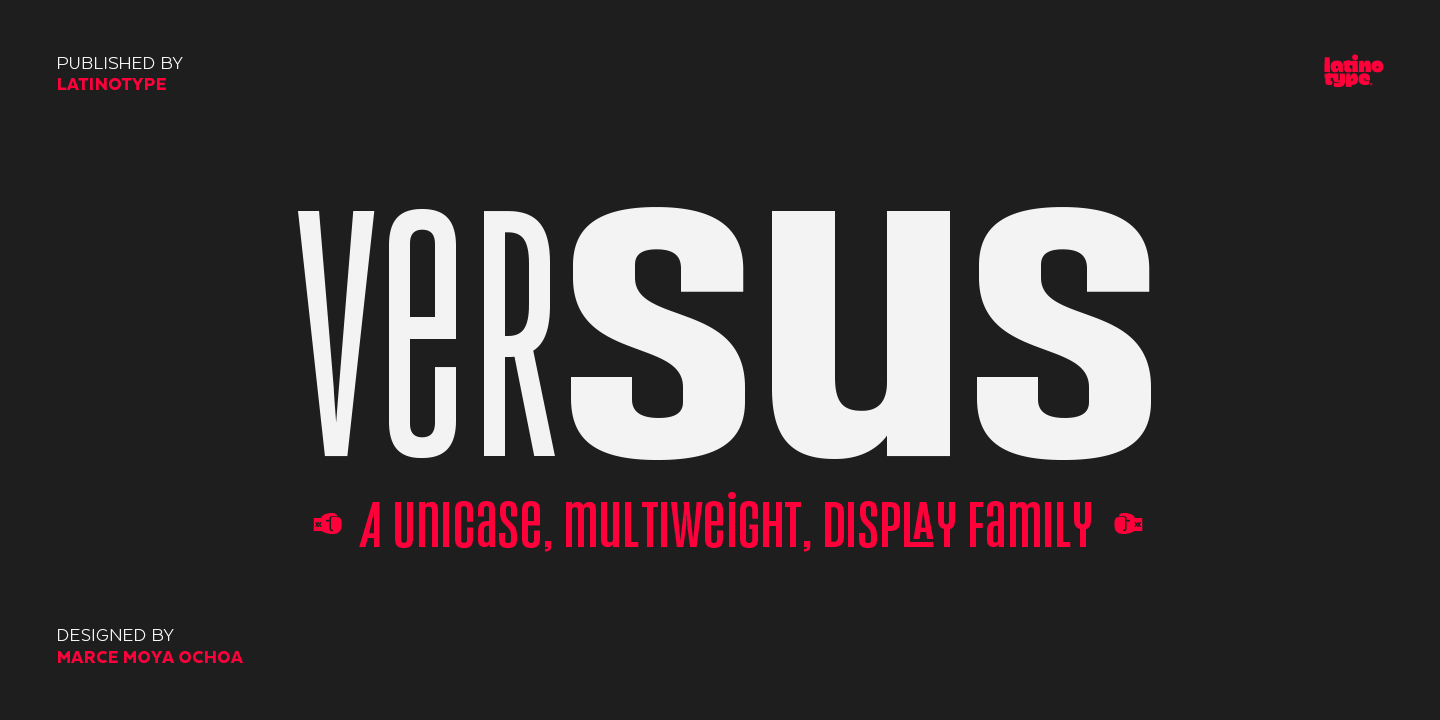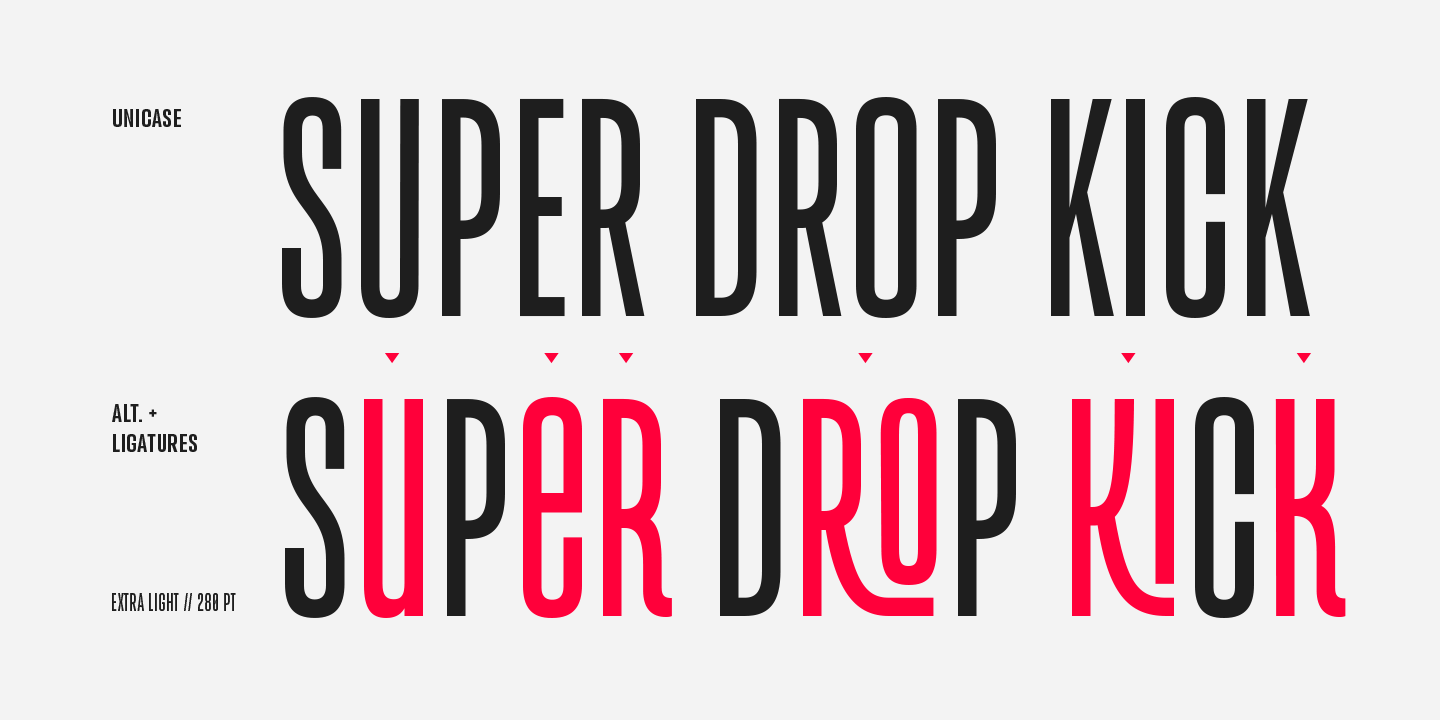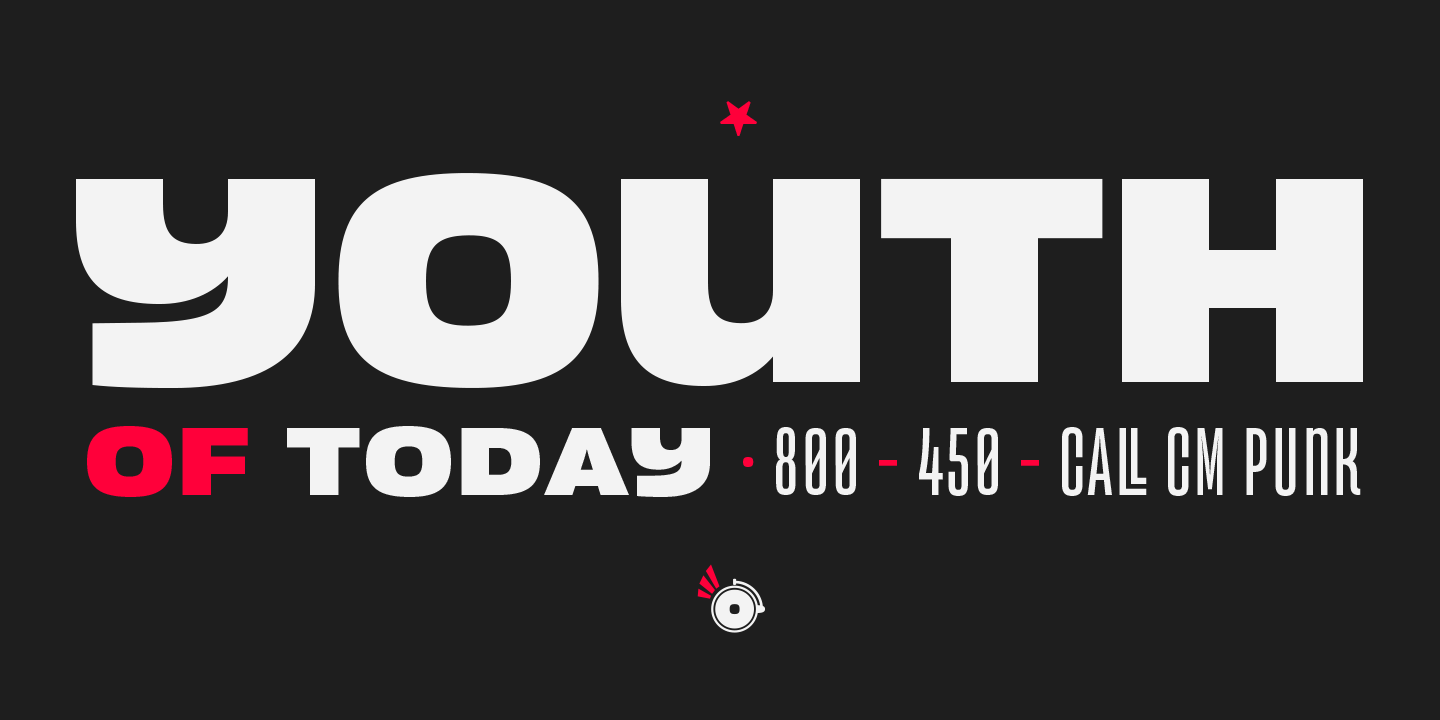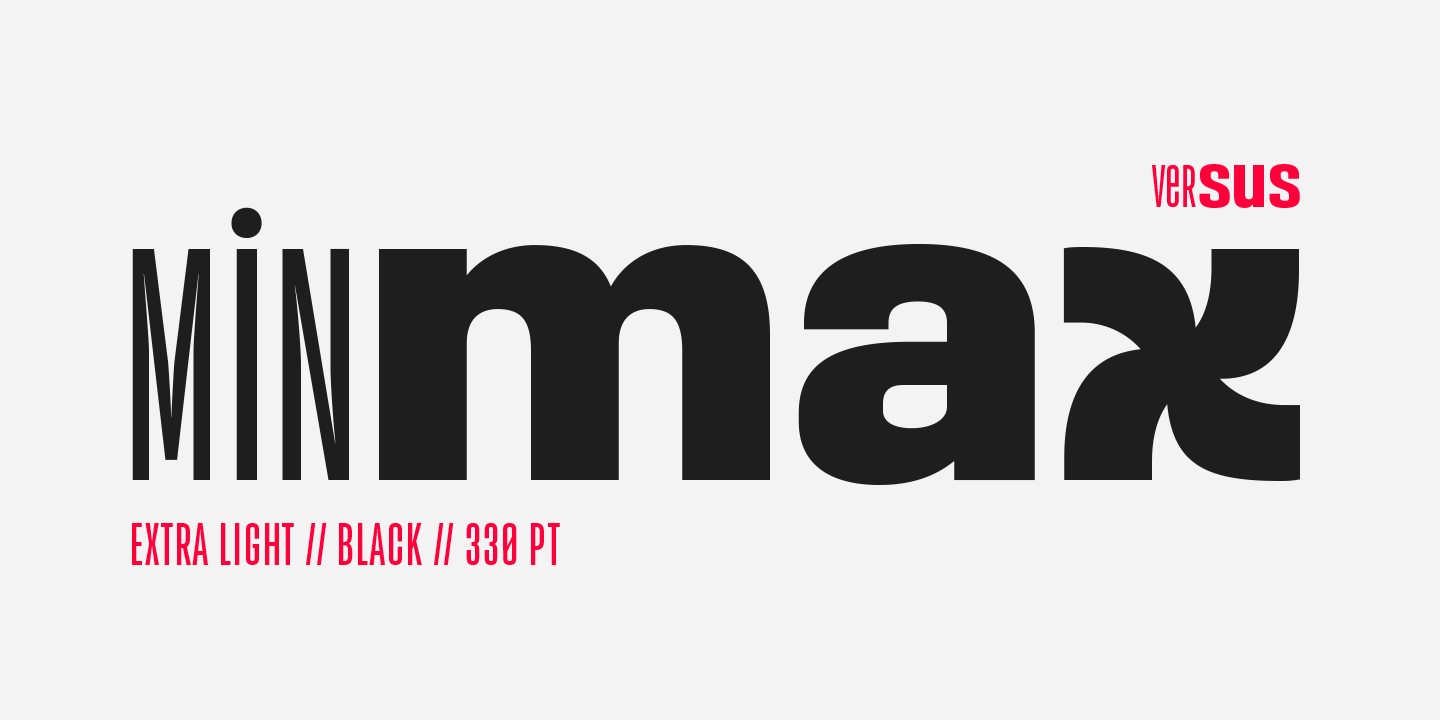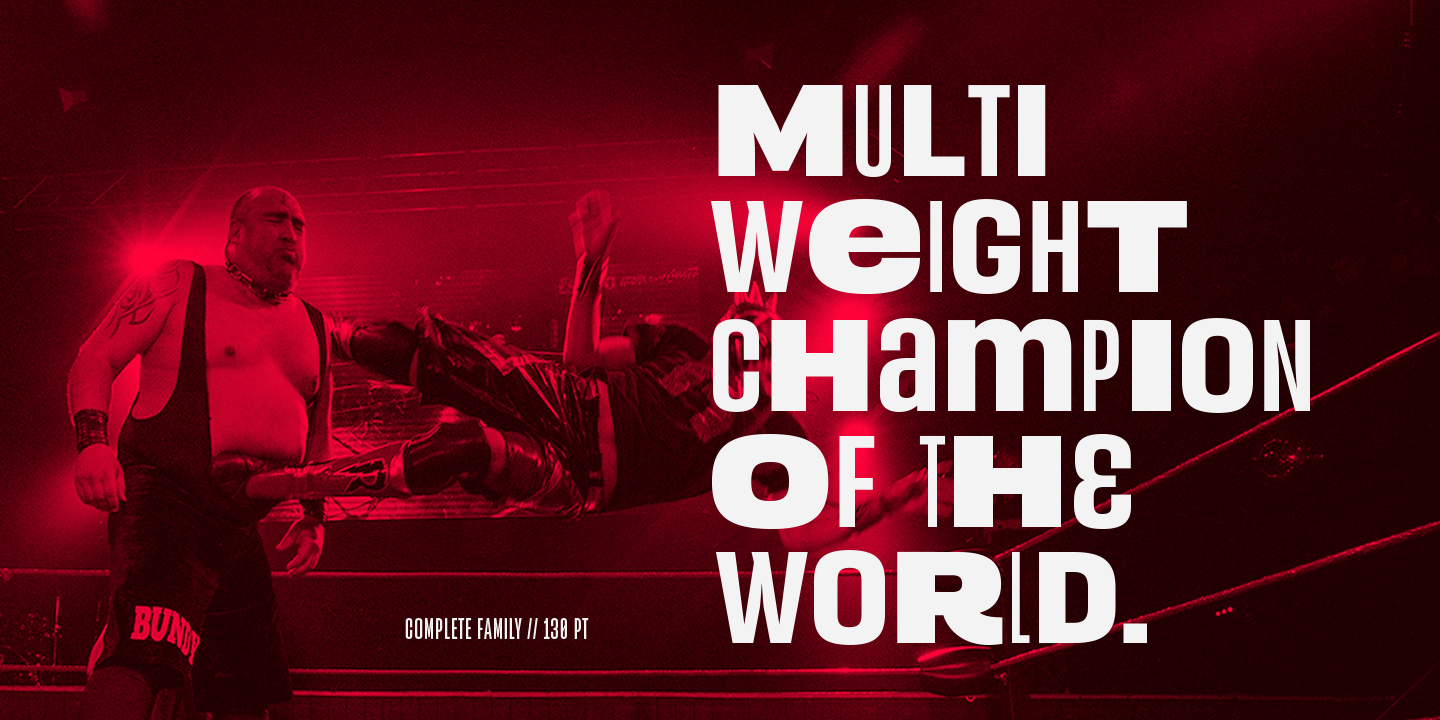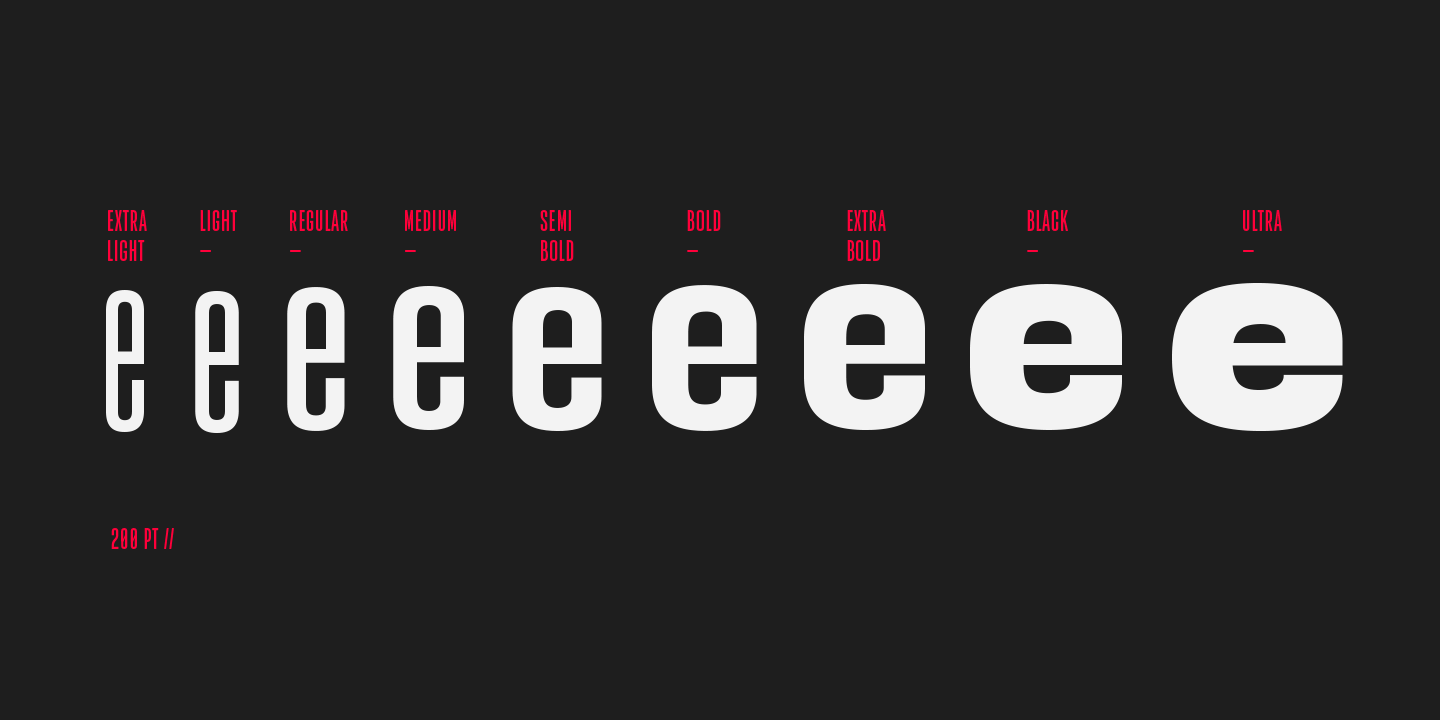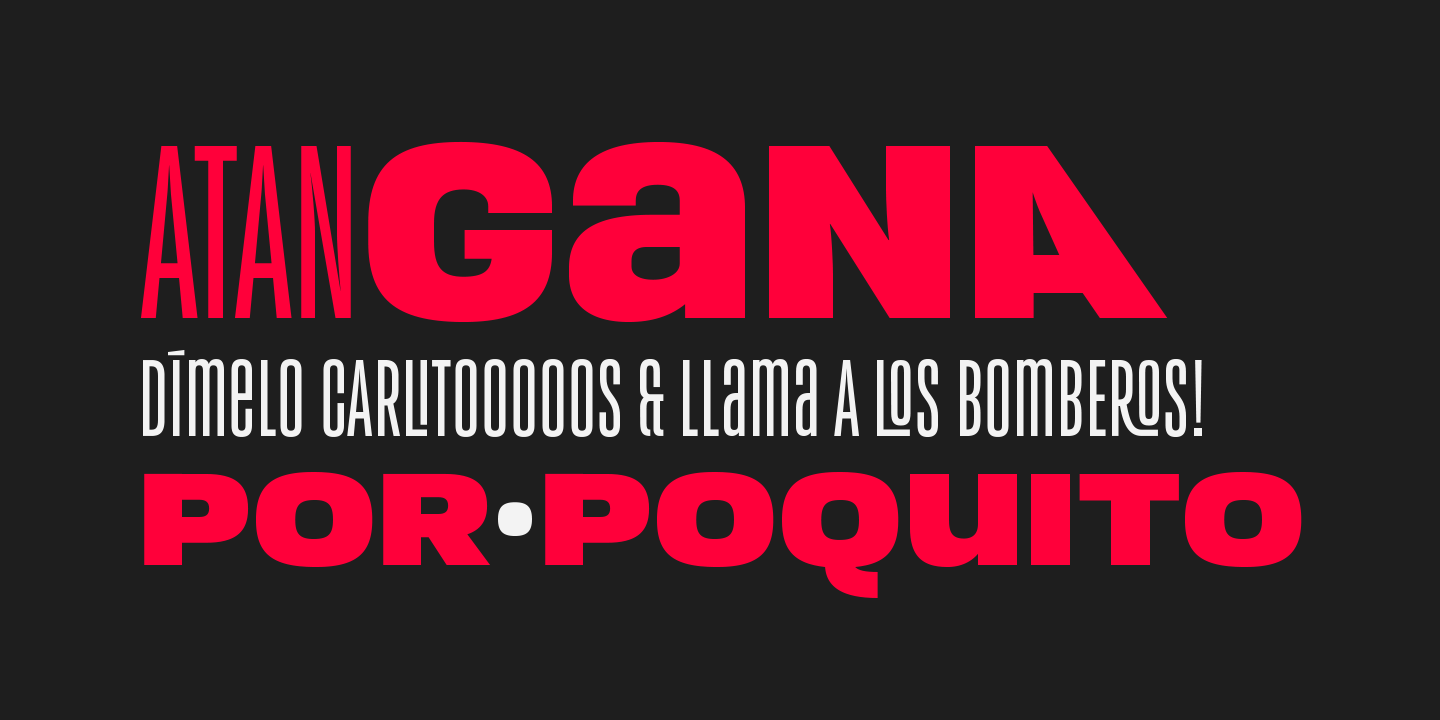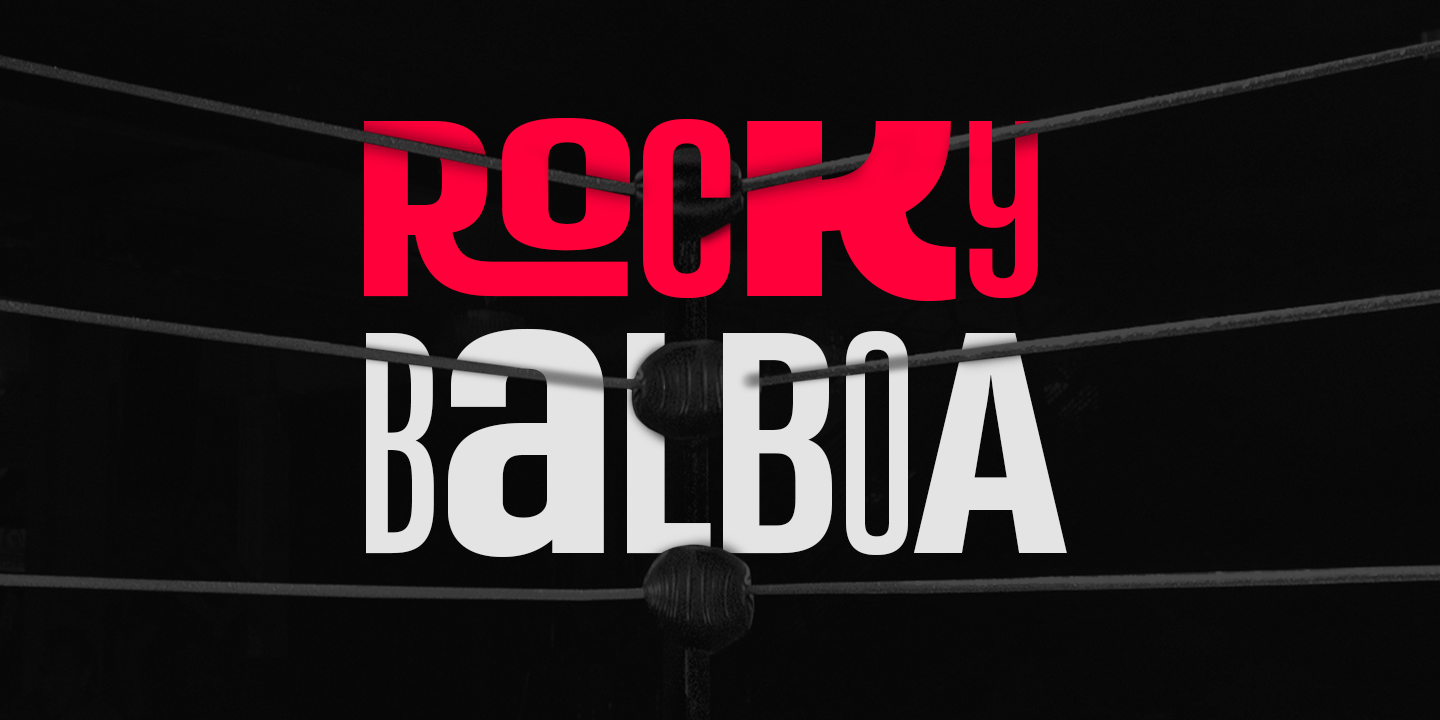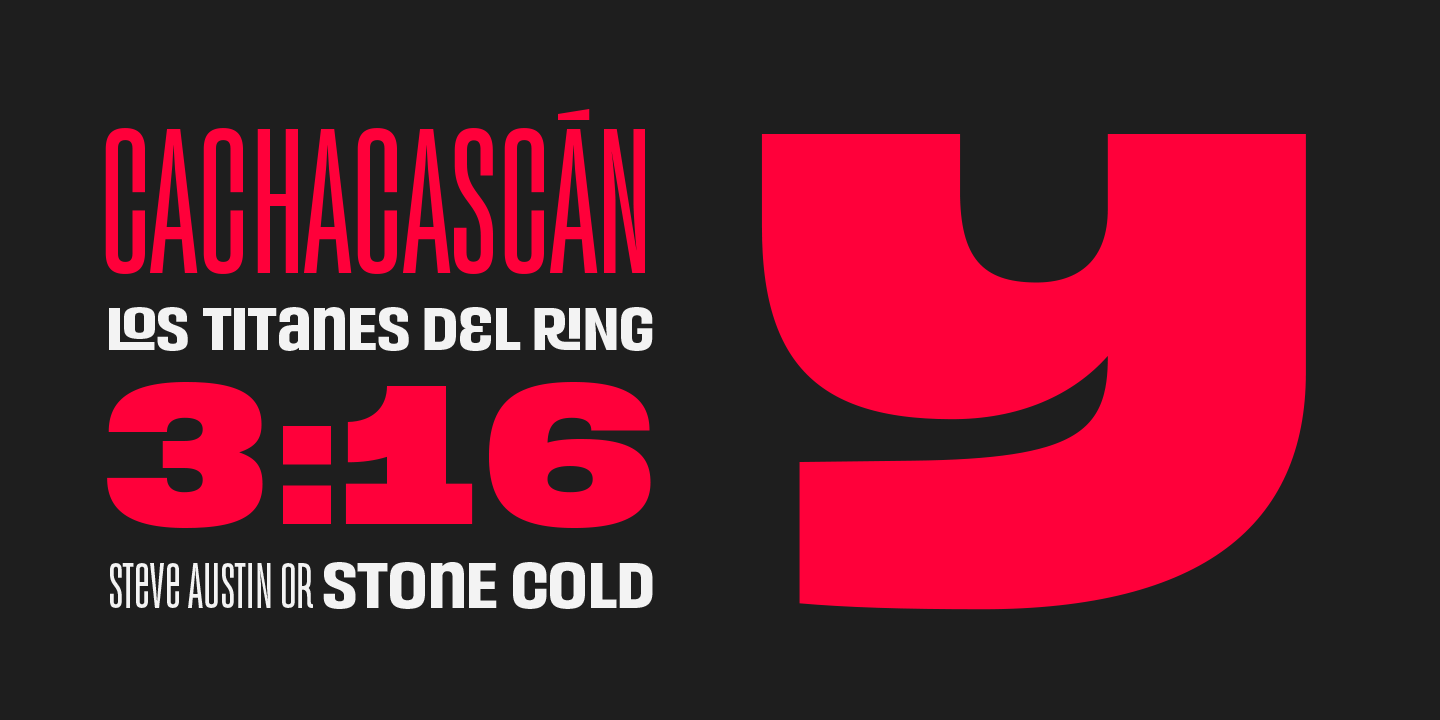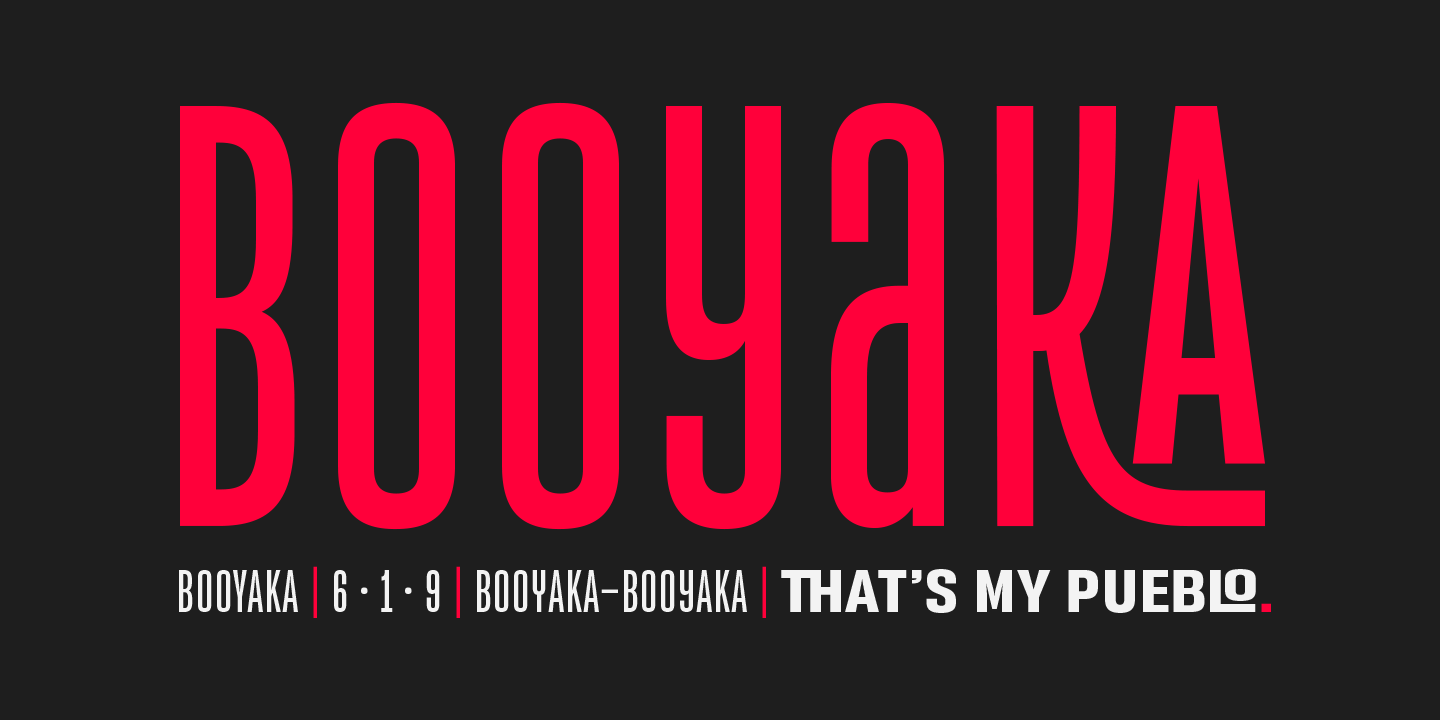
Versus (9 fonts)
The Versus family comes in 9 weights—from a lightweight and condensed Extra Light to an expanded and heavy Ultra. Its character set supports over 200 different languages. The font also includes a large number of stylistic alternates and a complete ligature set which give your compositions a strong identity and personality.